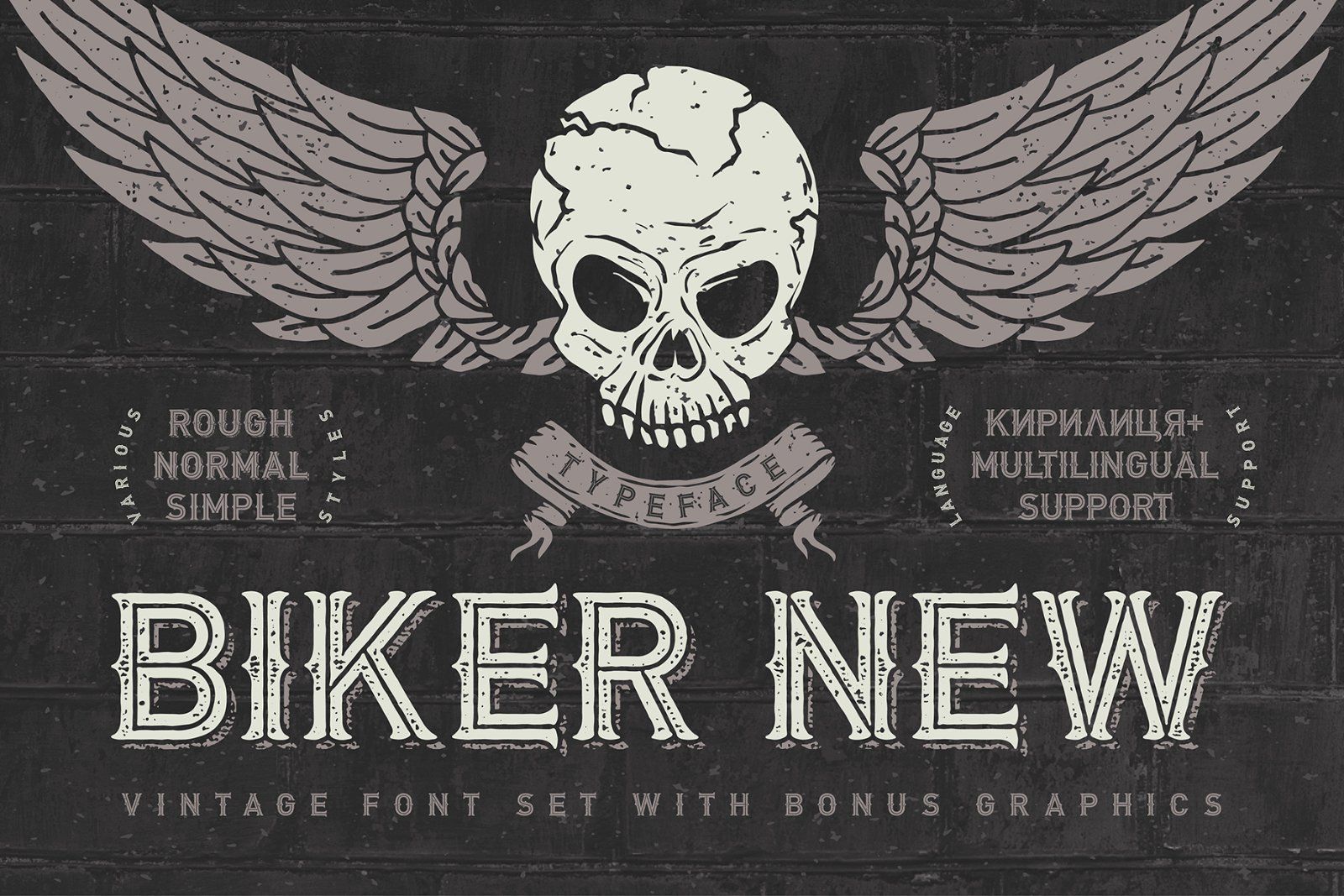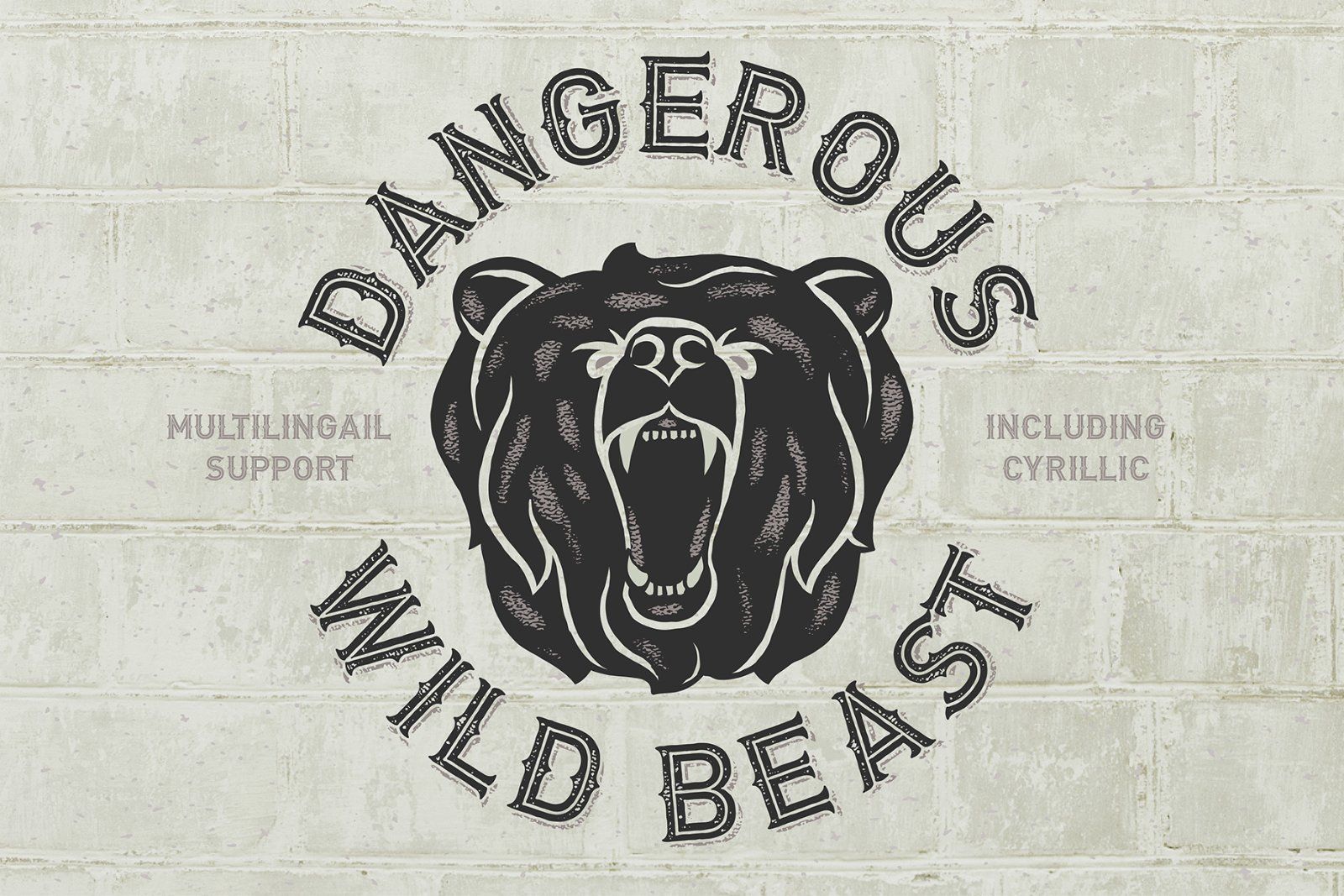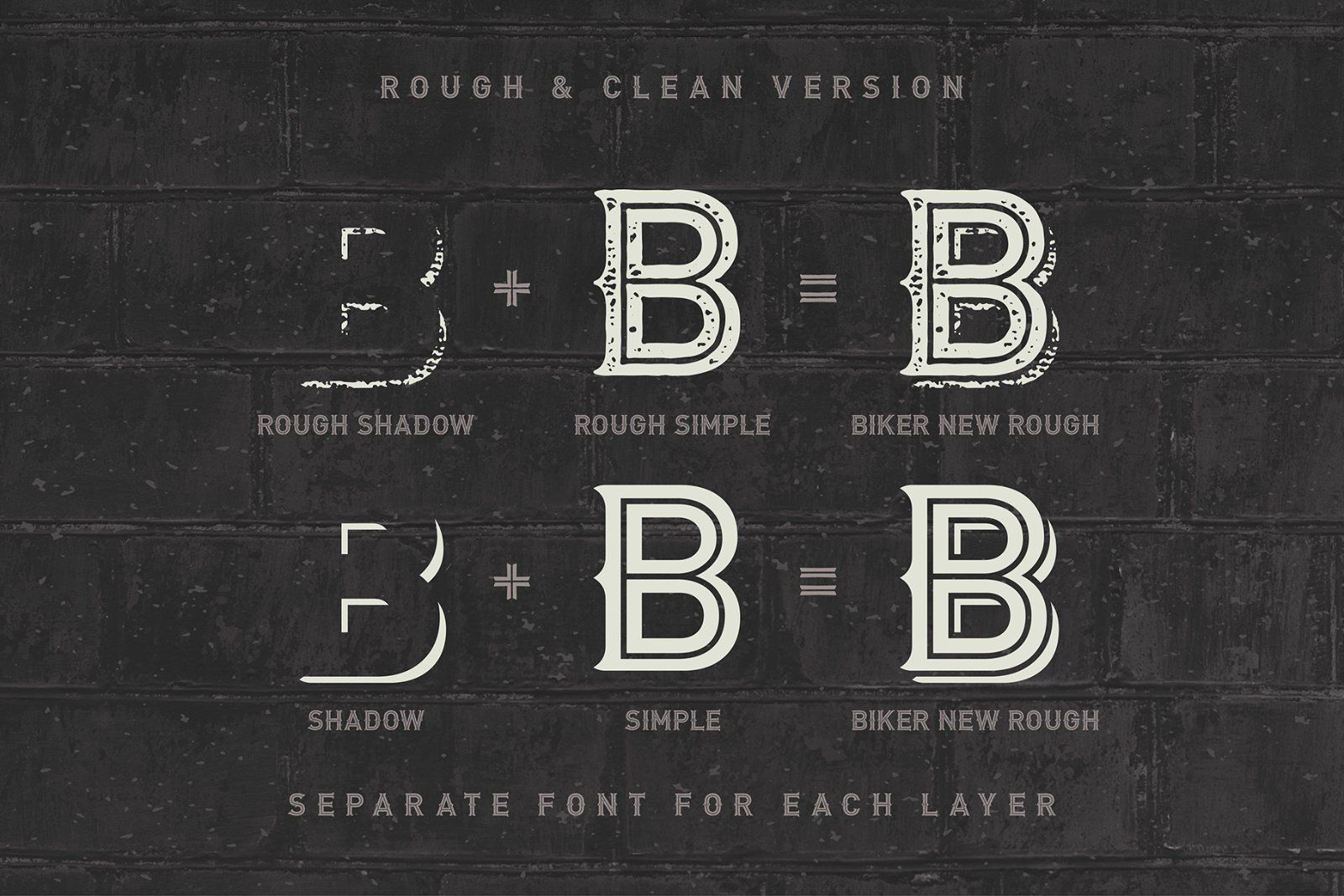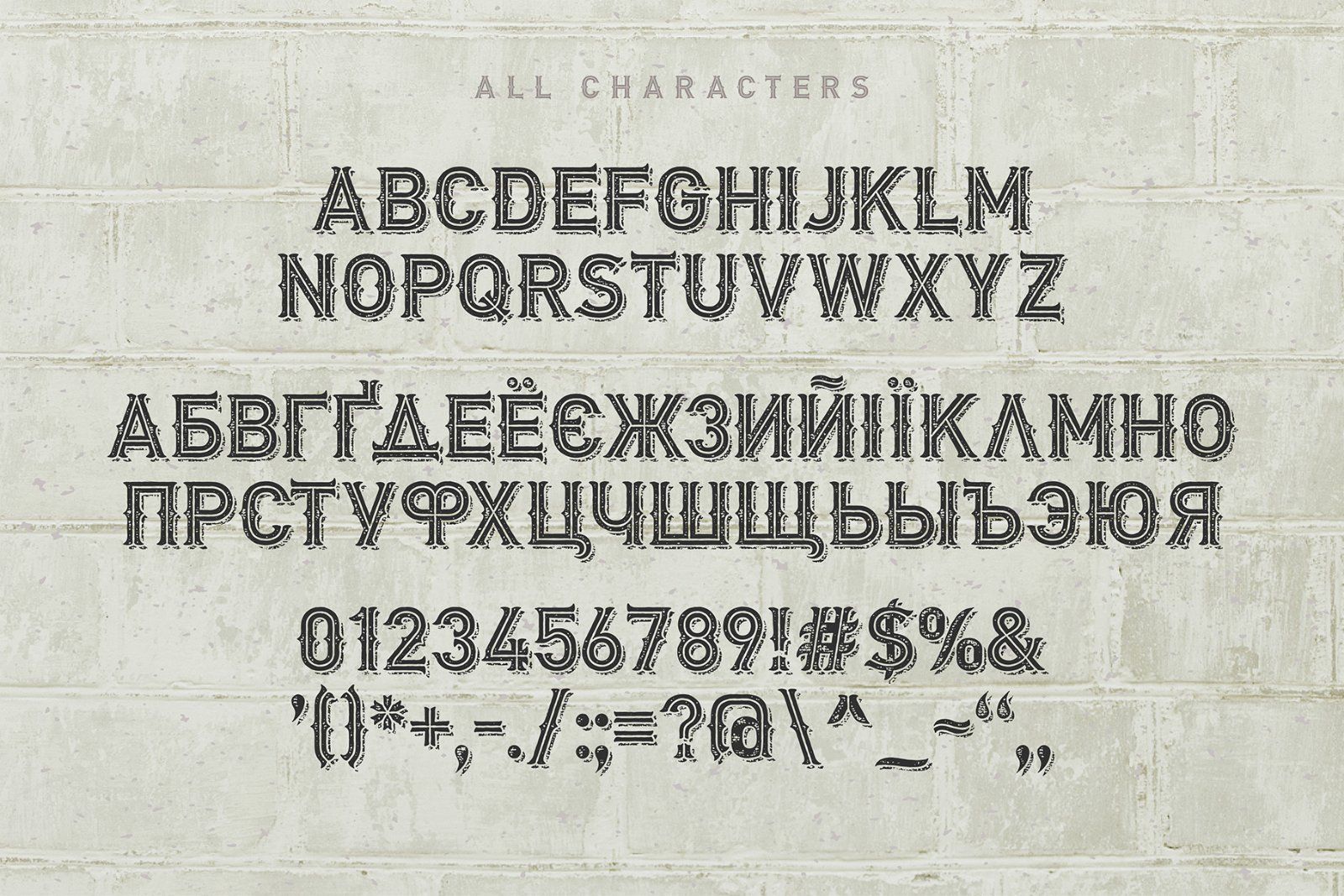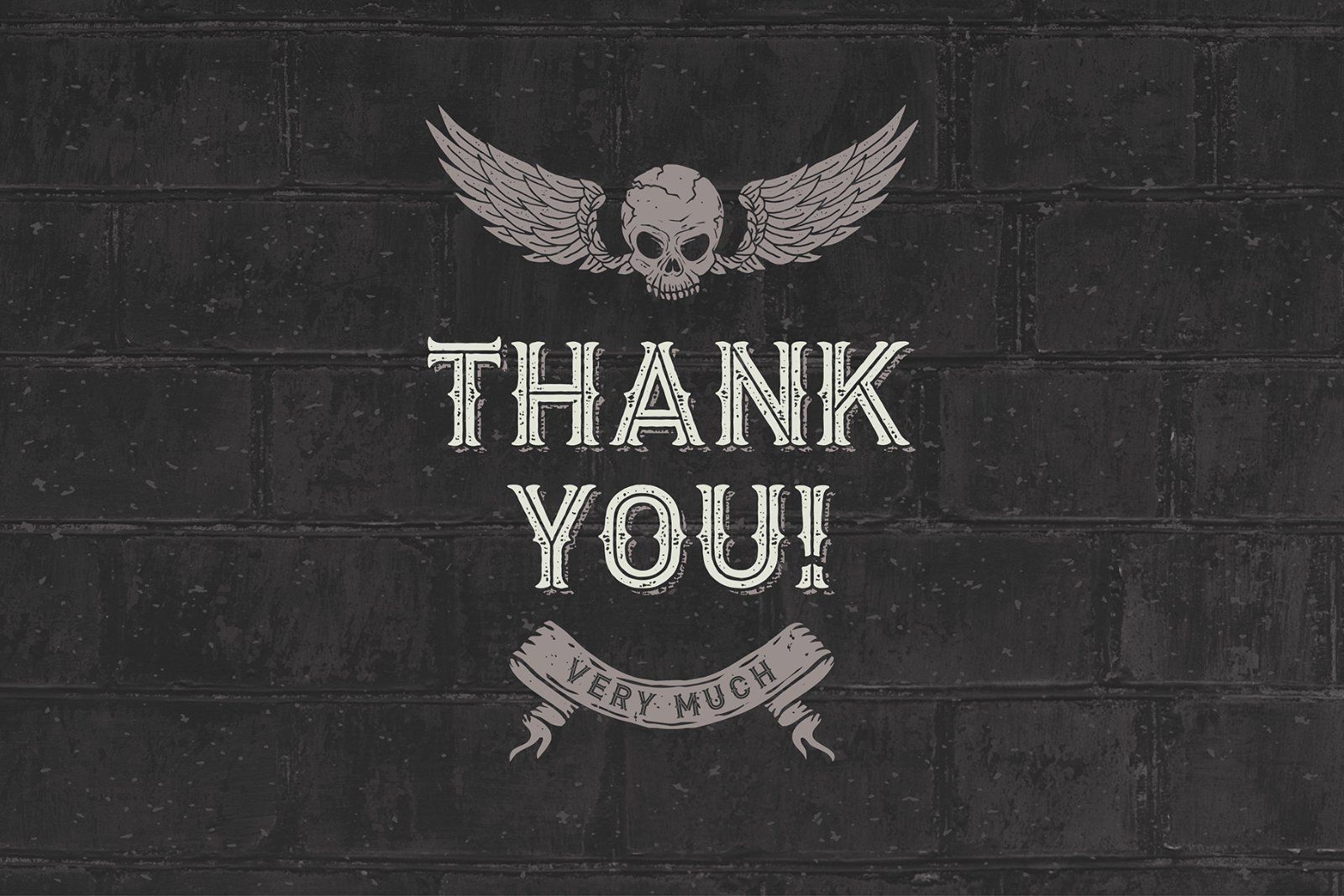
Hello! Introducing an updated Biker New typeface. It has a multilingual support including Cyrillic characters, numbers, and other basic glyphs (the fourth screenshot). Also now it has separated font files for shadow layer. Rough & clean versions are available. As a bonus included a skull illustration with wings and ribbon and a bear illustration in vector eps format.